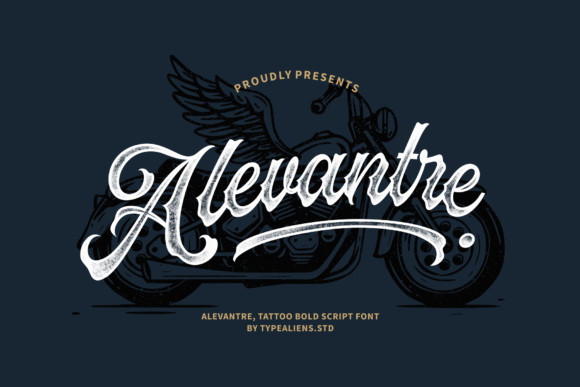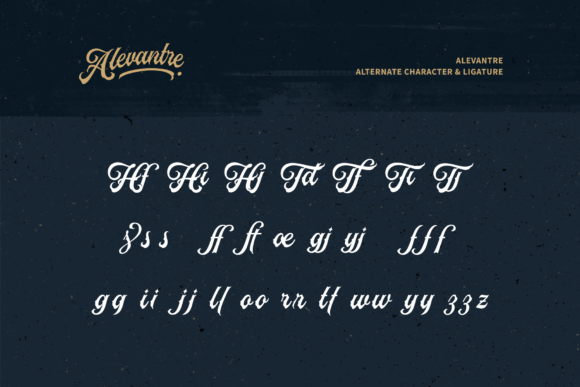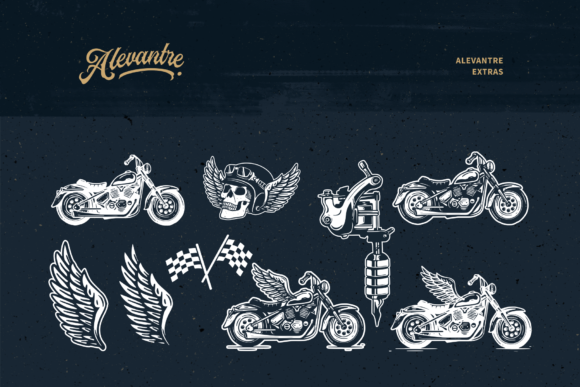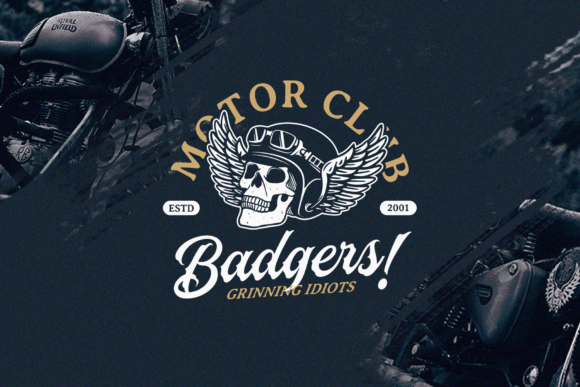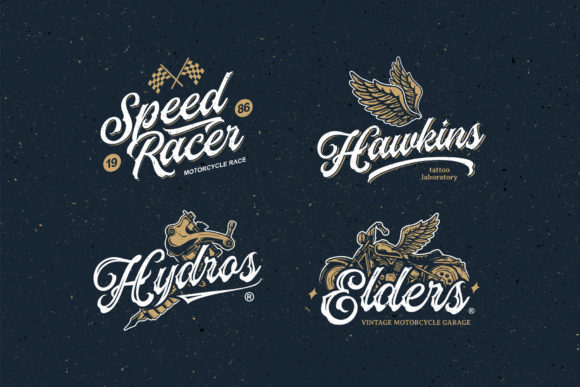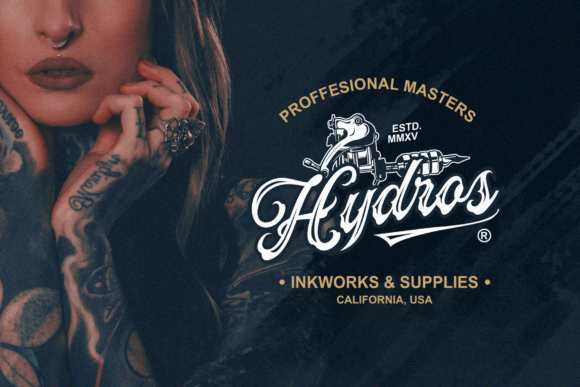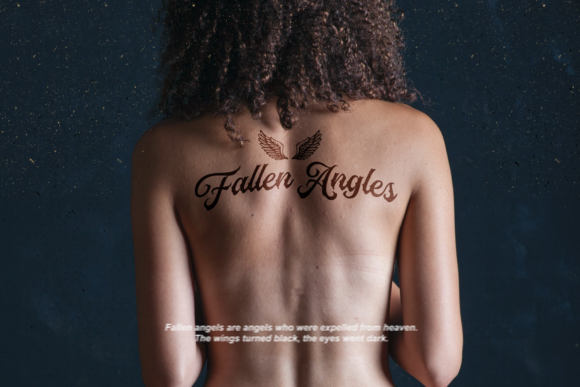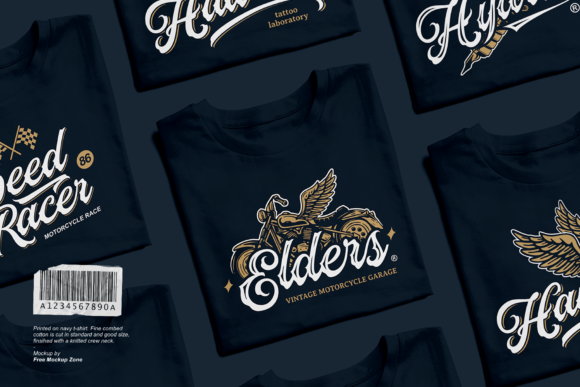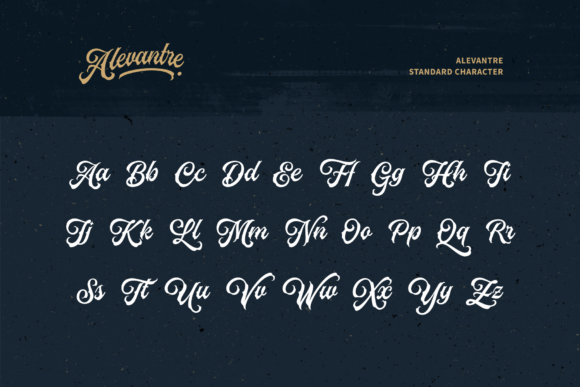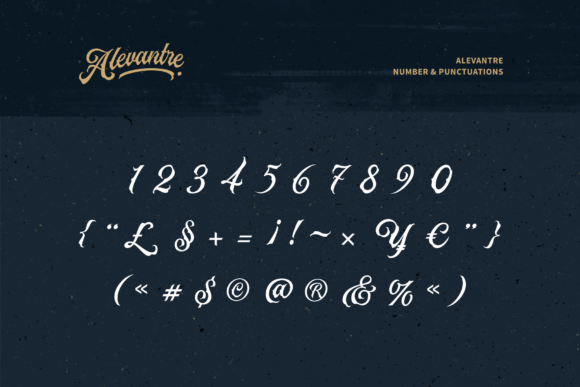
Alevantre Font
About Alevantre Font
Alevantre is a tattoo style script typeface with a unique style. Use it for any design project that requires a personalized appearance!